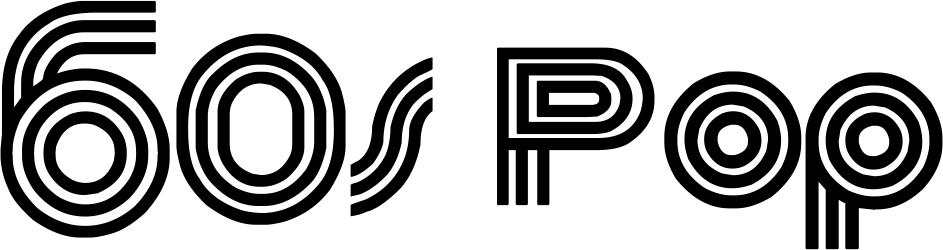
60s Pop Font
This font, as its name implies, can take you to the world of the ’60s, Due to its retro and multi-line font category. One of the unique features of this rare font is that it has a loop in some letters and can make your work more attractive and different.
You can use this 70s disco font in many retro paintings such as nightclubs, flyers, music covers, logotypes, and many more.